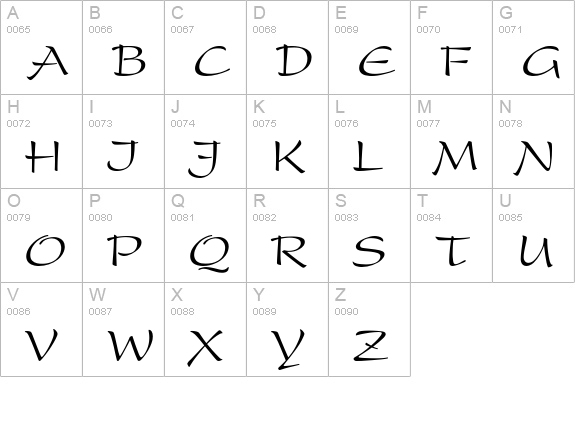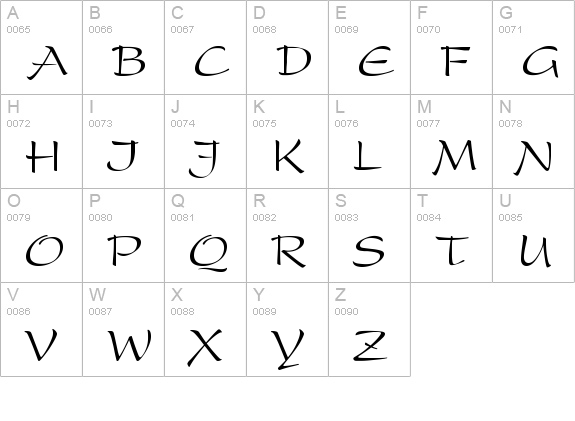
Present BQ font is a modern and stylish typeface that exudes elegance and sophistication. With its clean lines and contemporary feel, this font is perfect for a wide range of design projects, from branding to posters to web design. The sleek and versatile nature of Present BQ font makes it a great choice for both headings and body text. What sets Present BQ font apart is not only its aesthetic appeal but also its accessibility. Designed with readability in mind, this font is easy on the eyes and ensures a pleasant reading experience for your audience. Whether you are working on a print ad or a digital campaign, Present BQ font will help you communicate your message effectively. The best part? Present BQ font is available for free download at FontsMarket.com. So go ahead and elevate your designs with this beautiful and functional typeface today!